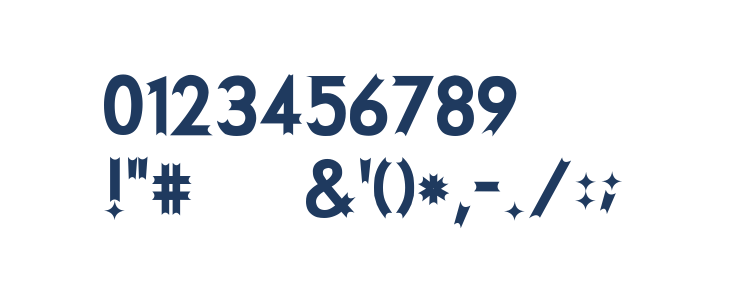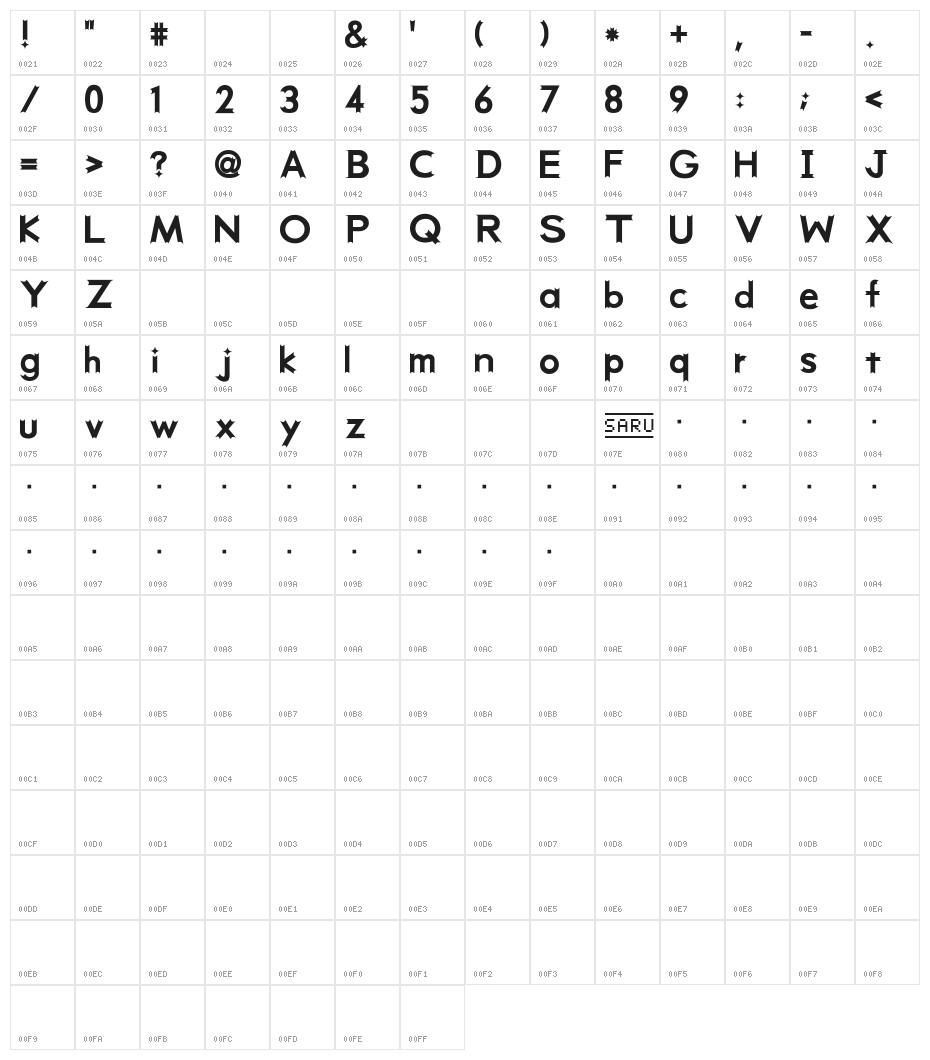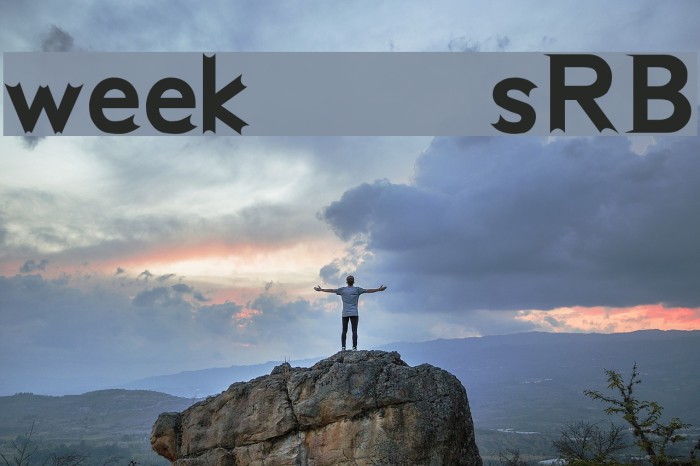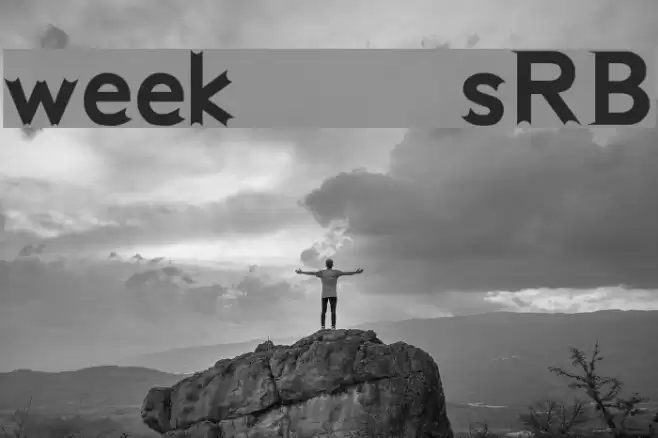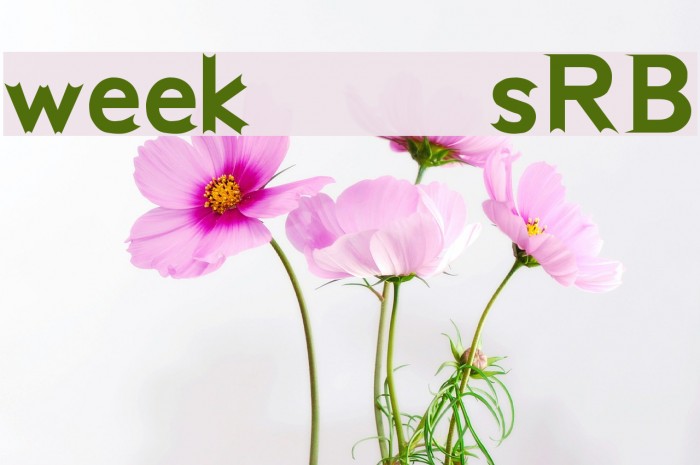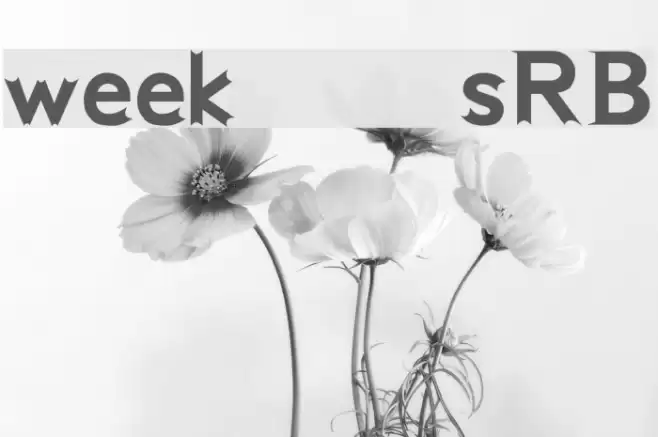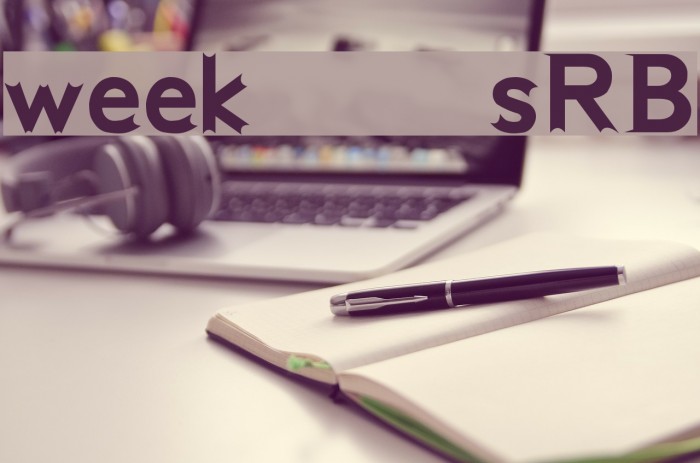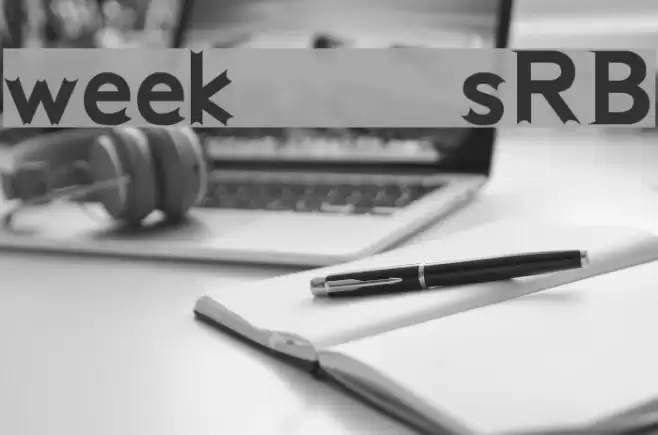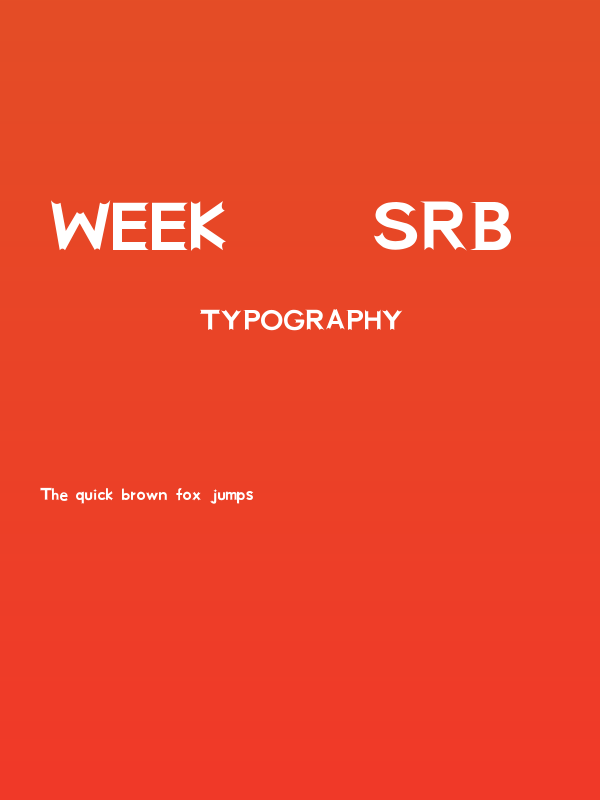
week [sRB] Font
week [sRB] Description
This font features a bold and striking design with sharp, angular serifs that give it a distinctive and edgy appearance. The characters are well-defined with a strong presence, making it ideal for attention-grabbing headlines or titles. The uppercase and lowercase letters maintain a consistent style, with unique embellishments that add a touch of flair. The numerals are equally bold, ensuring readability and impact. Special characters are designed to match the overall aesthetic, providing a cohesive look across all glyphs.